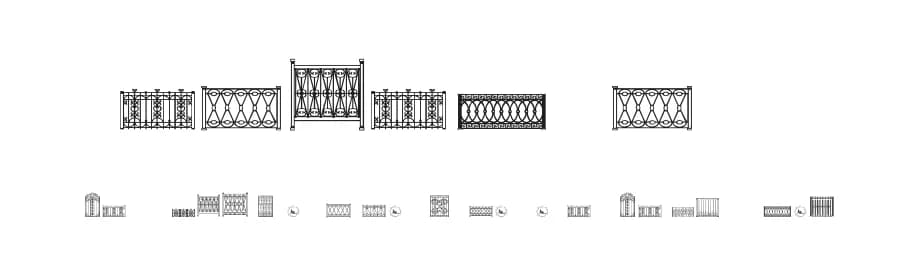
About Fenced In LT Font
Fenced In LT is a dingbat font designed by jane aka ladytimeless aka justsomelady. It includes 653 glyphs, a regular weight, TTF (TrueType) format, and 292 languages. Fenced In LT is free to download; check the license details on this page before commercial use. Dingbat fonts like Fenced In LT work best for icons, ornaments, bullet points, and decorative accents.
Fenced In LT Font is a versatile dingbats font that works for both headings and body text. Pair it with a contrasting sans-serif or serif font to add visual interest and a clear distinction between titles and body copy.
Fenced In LT Font
by jane aka ladytimeless aka justsomelady
Fenced In LT Font is a dingbats typeface by jane aka ladytimeless aka justsomelady, ideal for logos, invitations, branding, and creative projects.